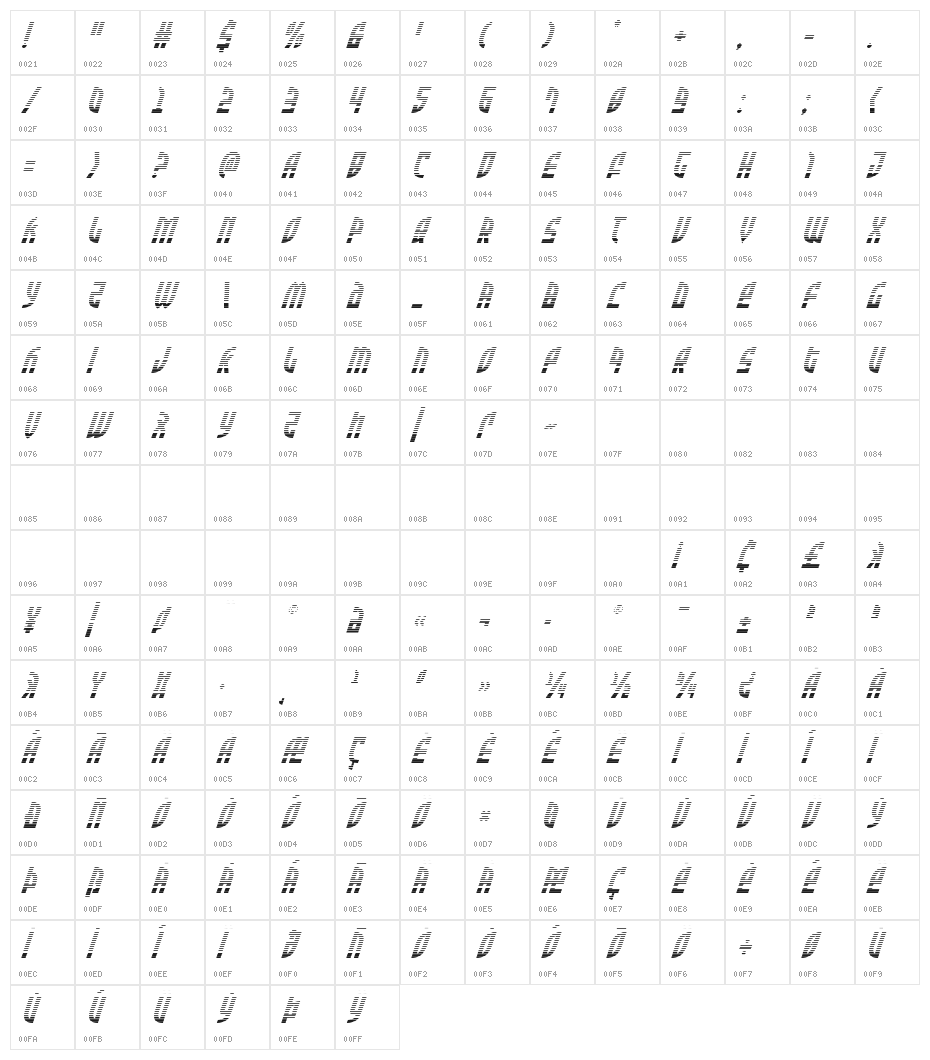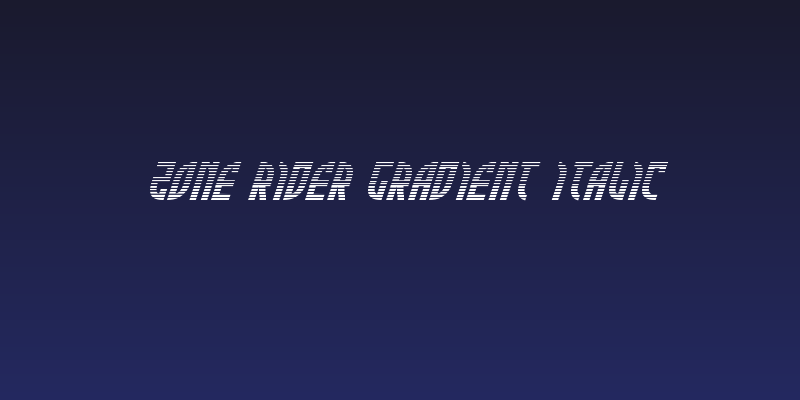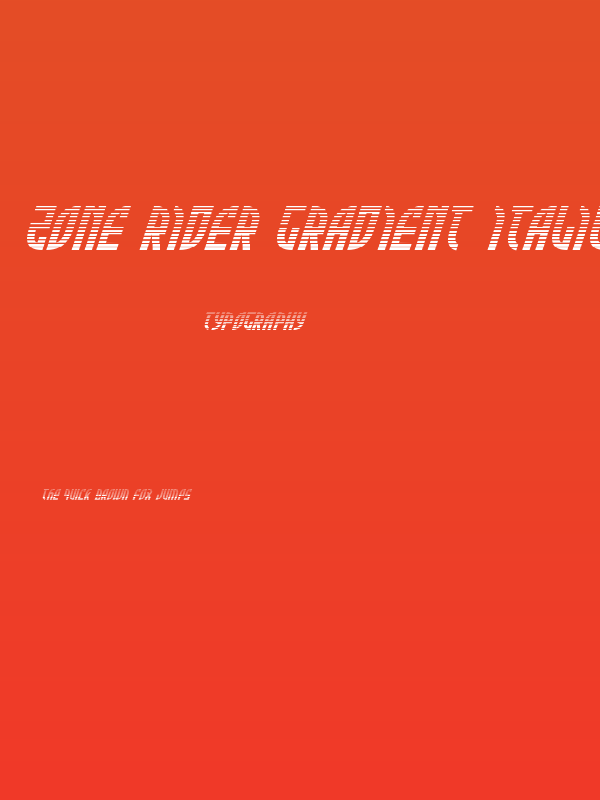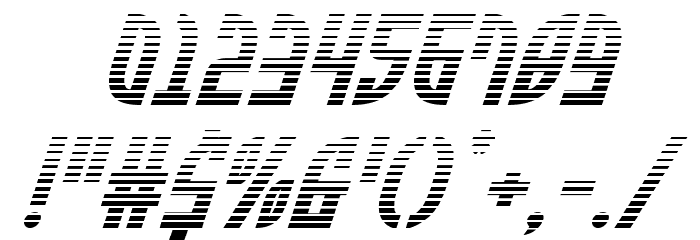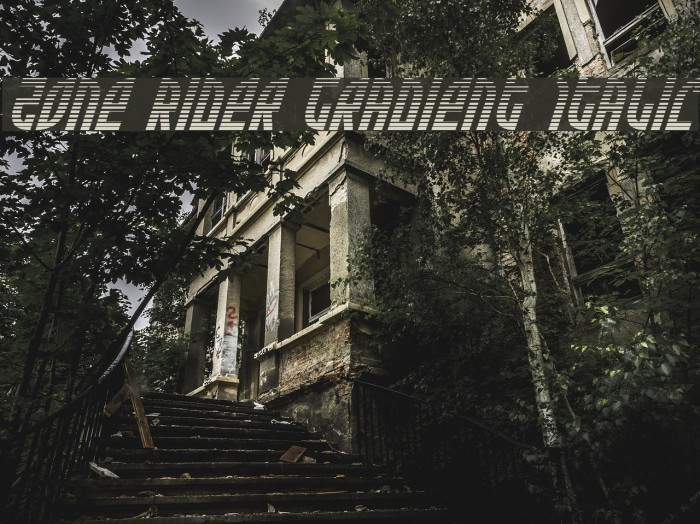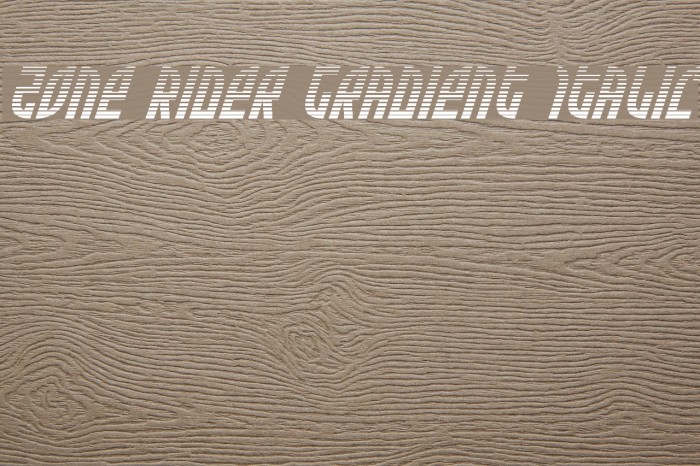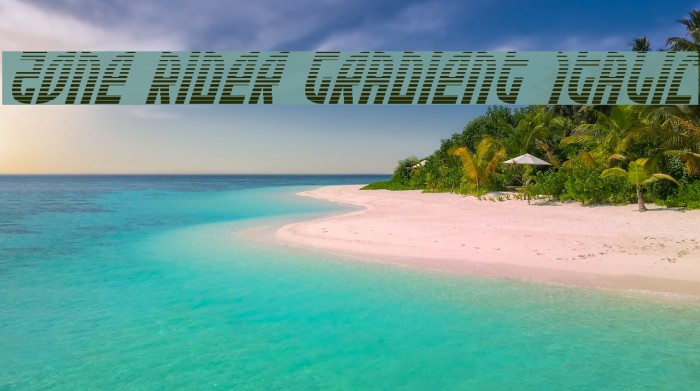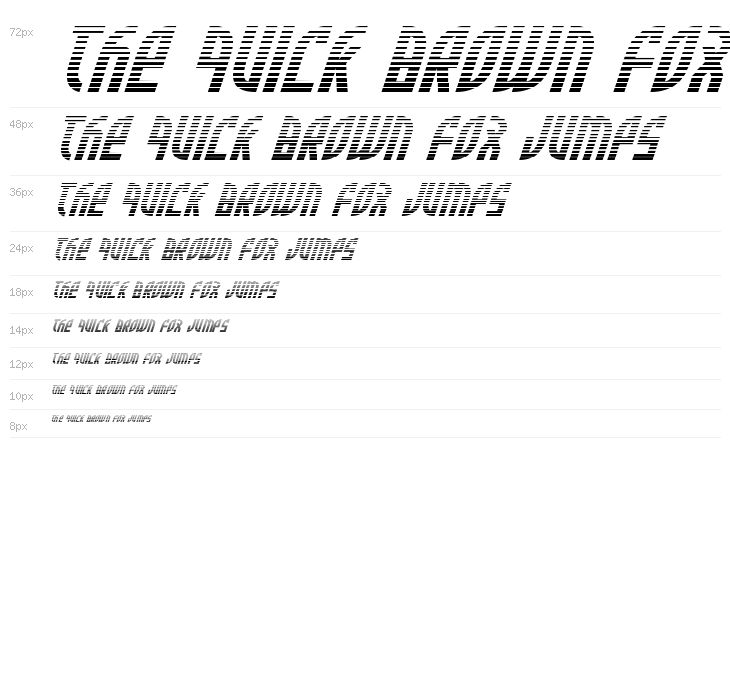
Zone Rider Gradient Italic Font
Zone Rider Gradient Italic Description
This font features a dynamic and futuristic design with a distinct gradient effect across each character. The italicized style adds a sense of motion and speed, making it ideal for projects that require a modern and energetic look. The characters are composed of horizontal lines that create a striped appearance, enhancing the gradient effect. This unique style is consistent across uppercase, lowercase, numbers, and special characters, providing a cohesive and striking visual impact.
| Proposed Projects | Ideal for sports branding, tech-related designs, futuristic posters, and dynamic advertising campaigns. |